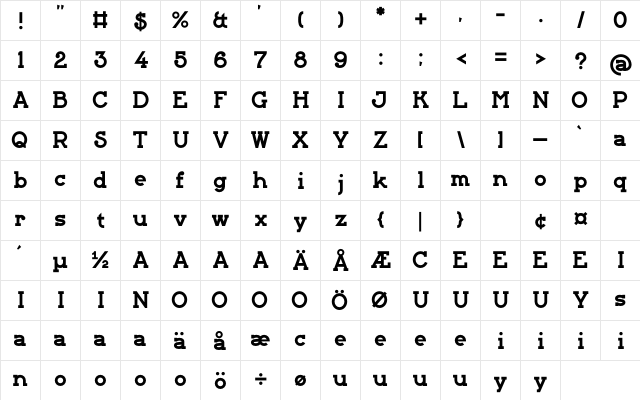
Grundsten Regular
| Designer | Benjamin Bl̨oltz |
Design Context for Grundsten Typeface
Grundsten offers clean, dependable letterforms without strong stylistic allegiance, making it a practical choice for designers who need flexibility.
Pro Tip: Pair Grundsten with a font of contrasting weight or personality to build a more expressive typographic hierarchy.